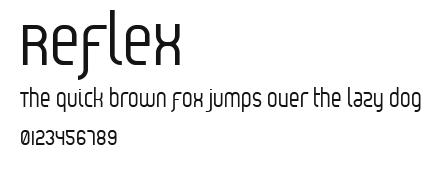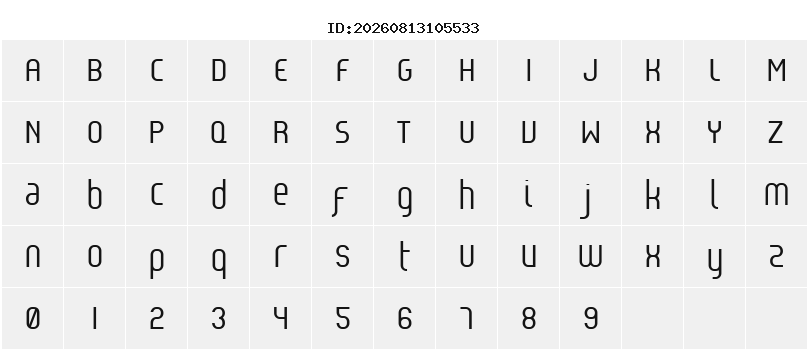
• Font Name: Reflex
• Manufacturer: Alejandro Paul for Typeworx
About Reflex.ttf
Reflex.ttf is a modern, elegant sans-serif font designed for ultimate readability and visual harmony. Perfect for branding, headlines, web design, and print materials.